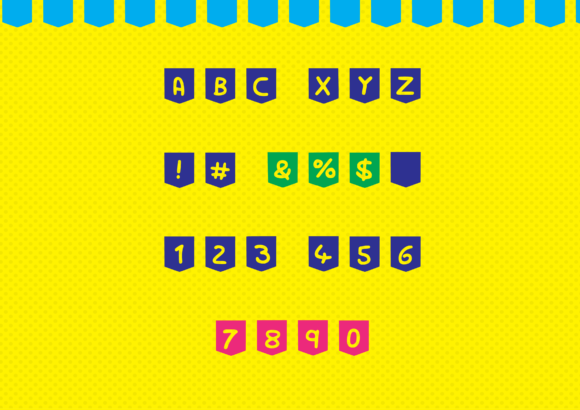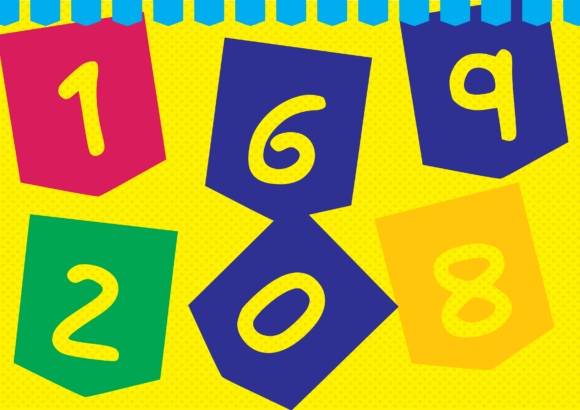
The Perfect Font for Celebrations: Unveiling Birthday Banner Font
Do you remember that moment when you designed a card for your little sister’s birthday and you wanted it to stand out from the rest? You searched for the perfect font to add that extra touch of magic, something that would capture the essence of childhood wonder. That’s when you stumbled upon Birthday Banner Font – a delightful decorative font with a festive theme that immediately caught your eye.
Birthday Banner Font is designed to add a playful and whimsical touch to any design, making it perfect for cartoon-related projects, children’s games, or any creation that requires a lovely and celebratory feel. As a designer, you’ll appreciate the versatility and charm of this font, which can instantly elevate your designs and make them more engaging and memorable.
With Birthday Banner Font, you can create beautiful and unique designs that will leave a lasting impression. Whether you’re a seasoned designer or just starting out, this font is sure to become a valuable addition to your toolkit, helping you to create birthday-themed designs that are truly special.
Birthday Banner Font Key Features
- Unique Characteristics: The font features playful, cursive lines and decorative elements, making it perfect for birthday-themed designs.
Birthday Banner Font Review
I recently had the chance to work with the Birthday Banner Font, and I must say it’s a unique and playful choice for any celebratory project. ✨ The font’s design is reminiscent of classic birthday banners, complete with curly lines and celebratory flair. It’s perfect for adding a touch of whimsy to your designs.
Here are some of the things that work well with this font:
- ✨ Unique and playful design that adds a celebratory feel
- ✨ Easy to read, even in smaller font sizes
- ✨ Great for adding a touch of personality to your designs
- ⚠️ Limited character set, which may not be ideal for longer texts
- ⚠️ May not be suitable for formal or professional projects
- ⚠️ Some users may find the font’s design too loud or overwhelming
Overall, I think the Birthday Banner Font is a great choice for designers looking to add a touch of personality and whimsy to their projects. Just be mindful of the font’s limitations and use it in contexts where it will shine.
Tip: Use the Birthday Banner Font in combination with bright colors and playful graphics to create a festive atmosphere.
Tip: Use the Birthday Banner Font in combination with custom illustrations and graphics to create a unique and personalized design.
Tip: Use the Birthday Banner Font in combination with colorful graphics and animations to create an engaging presentation or document.
The Birthday Banner Font is ideal for creating festive and celebratory designs, such as:
- Birthday invitations and cards
- Party decorations and banners
- Gift tags and wrapping paper
- Personalized birthday gifts and mementos
Great Vibes is a beautiful, cursive font perfect for creating a festive atmosphere. It’s ideal for use in wedding invitations, baby shower invitations, or any other celebration that requires a touch of elegance. Compared to Birthday Banner Font, Great Vibes has a more refined and sophisticated look, making it suitable for more formal events.
Carolyna Pro is a modern, script font that works well for a variety of designs, from invitations to social media posts. It’s a great alternative to Birthday Banner Font when you want to add a touch of sophistication without going over the top. Carolyna Pro is ideal for use in designs where you want to convey a sense of fun and playfulness.